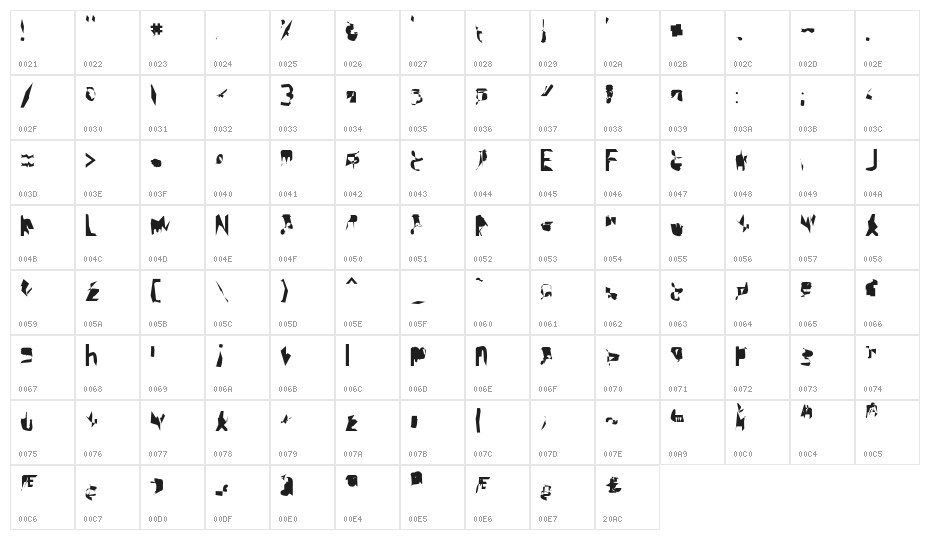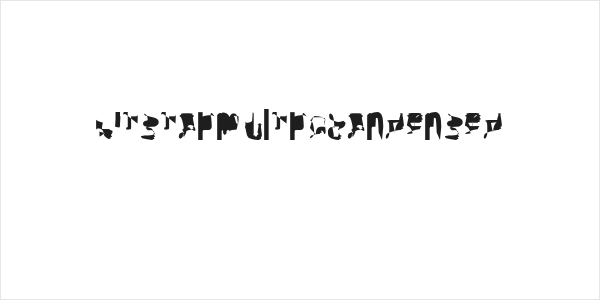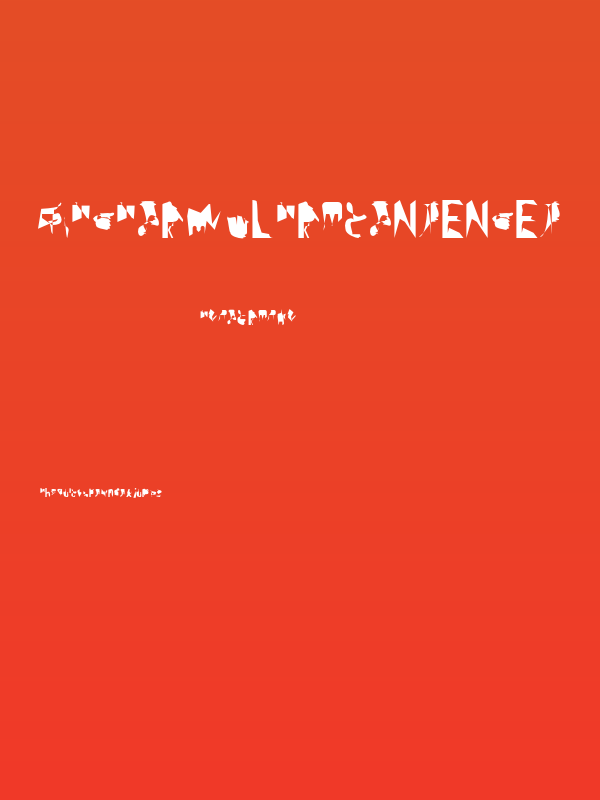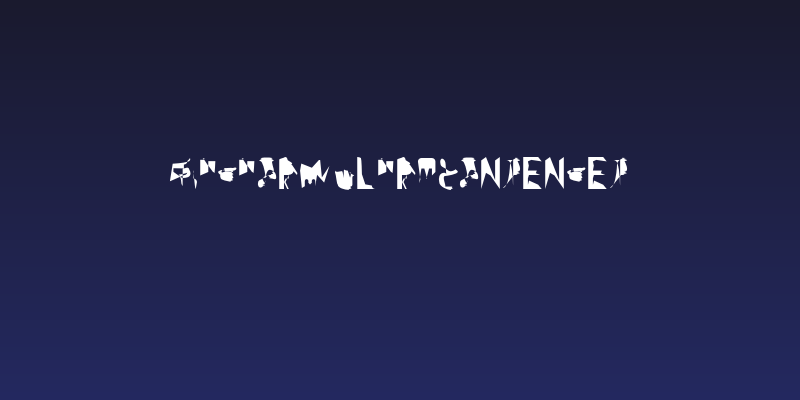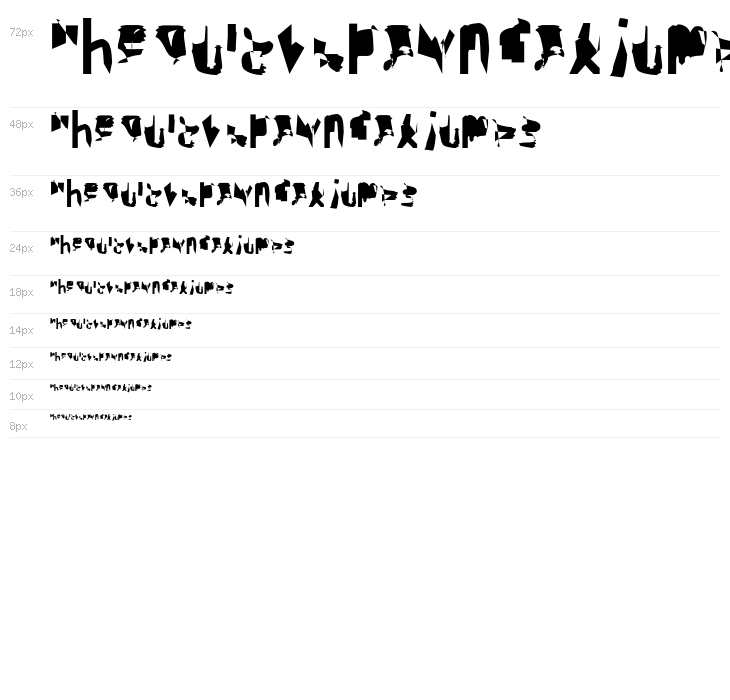
bitstorm ultracondensed Font
bitstorm ultracondensed Description
This font presents a highly abstract and fragmented design, characterized by its ultra-condensed and distorted letterforms. Each character appears as if it has been shattered or eroded, creating a chaotic yet intriguing visual effect. The strokes are bold and irregular, with varying thickness that contributes to its unique style. This font challenges readability, making it more suitable for artistic or decorative purposes rather than practical text display. Its unconventional appearance can capture attention and evoke a sense of modern art or digital glitch aesthetics.
| Overall Style | Modern, Abstract, Artistic |
| Use Case | Logos, Posters, Artistic Displays |
| Proposed Projects | Ideal for experimental design projects, album covers, digital art, or any creative work that embraces a chaotic and modern aesthetic. |